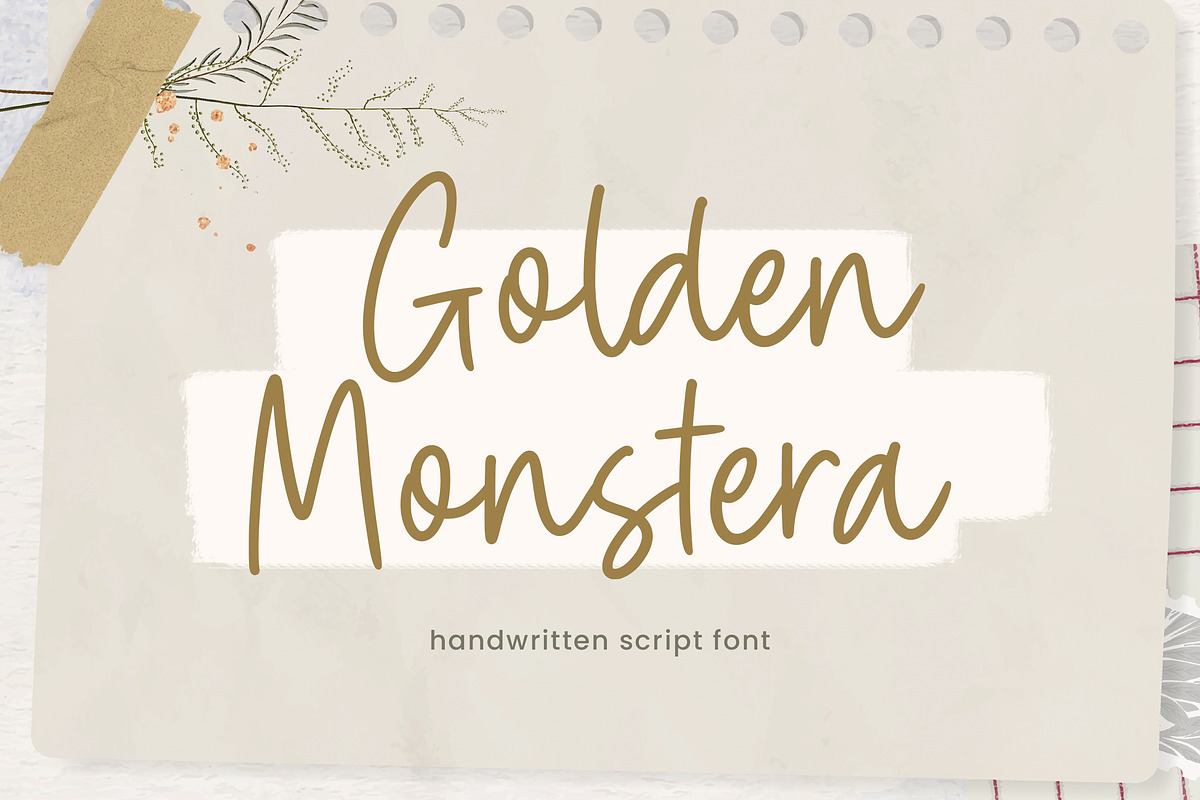
Golden Monstera - Handwritten Script Font is perfect for tropical branding projects, botanical wedding invitations, nature-inspired packaging, eco-friendly product labels, plant-based business materials, greenhouse signage, garden center branding, organic lifestyle products, tropical resort promotions, wellness retreat materials, natural beauty brands, and lush botanical designs.
Golden Monstera - Handwritten Script Font is exciting because it captures the luxurious beauty and exotic elegance of tropical foliage through flowing handwritten letterforms that embody the golden warmth and lush vitality of monstera plants in their natural paradise. This enchanting typeface features organic curves and natural flow patterns that mirror the graceful growth of tropical vegetation and the sophisticated beauty of botanical environments. The font's golden aesthetic creates instant connections with audiences who appreciate natural luxury, tropical elegance, and the exotic appeal of lush botanical settings.
Golden Monstera - Handwritten Script Font includes comprehensive font families: Regular Tropical Style, Bold Lush Weight, Light Delicate Touch, Medium Natural Balance, Italic Flowing Vine, Condensed Leaf Format, Extended Garden Width, Gold Accent Version, Shadow Depth Effects, and Special Botanical Symbols, providing complete solutions for tropical and botanical design projects that celebrate natural luxury and exotic elegance.
This luxurious typography solution transforms ordinary communications into tropical paradise experiences through its authentic botanical aesthetic and golden handwritten elegance. Golden Monstera - Handwritten Script Font Free Download enables designers and tropical brands to access premium botanical typography that instantly adds exotic luxury, natural sophistication, and tropical appeal to any creative project. The font's carefully crafted organic elements ensure authentic botanical character while maintaining excellent readability and distinctive tropical elegance.
Tropical resorts, botanical brands, and luxury nature businesses trust Golden Monstera - Handwritten Script Font for its ability to communicate exotic luxury, natural sophistication, and tropical paradise experiences to audiences seeking premium nature connections and botanical elegance. The typeface's lush construction performs beautifully across various applications, from intimate botanical communications to large-scale tropical branding campaigns. Its extensive character support includes multilingual capabilities and botanical design elements that enhance luxurious tropical brand presentations.
The creative inspiration behind Golden Monstera - Handwritten Script Font draws from the golden hour lighting in tropical forests, the elegant growth patterns of monstera plants, and the luxurious beauty of exotic botanical environments. This nature-luxury approach creates a font that feels genuinely tropical while maintaining contemporary sophistication across different botanical contexts and luxury nature brand expressions.
Whether creating tropical resort identities, botanical product packaging, or luxury nature campaigns, this golden monstera script delivers exceptional results that capture the essence of tropical paradise and botanical luxury. Download Golden Monstera - Handwritten Script Font today and discover how premium tropical typography can transform your design projects into exotic expressions of natural luxury, botanical elegance, and the golden beauty that defines the most sophisticated tropical and botanical brand experiences.